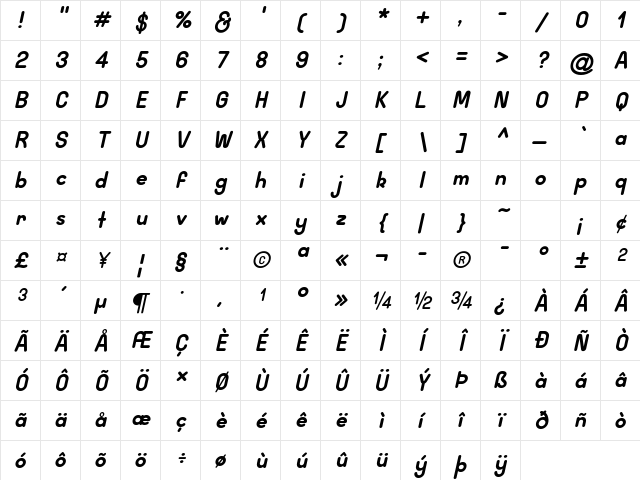
Wida Round Demo Bold Italic
Foundry: StudioTypo
Design Context for Wida Round Demo
Wida Round Demo softens its letterforms with rounded terminals, giving it an approachable, friendly quality that works well in consumer-facing and digital contexts. The slanted form adds forward momentum and visual energy. Its bold stroke weight gives it real presence on the page.
Font Pairing: Pairs well with a rounded or humanist sans for body copy, maintaining the friendly tone without relying on Wida Round Demo to carry extended reading.
Pro Tip: Use Wida Round Demo for UI elements, app interfaces, and anywhere a friendly, approachable tone needs to be maintained without sacrificing clarity.